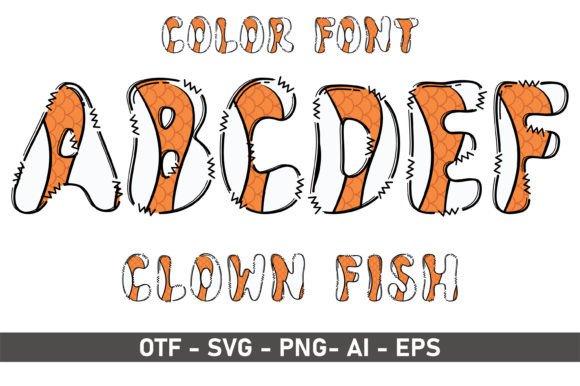
Dive into the whimsical world of Clown Fish Font, a vibrant and playful font family that sparks creativity and captures hearts. Crafted by Veil, these captivating fonts are a kaleidoscope of colors, transforming any design into an artistic masterpiece.
Step into a realm of imagination, where Clown Fish Font dances across your screen, adding a touch of magic to your creations. Its vibrant hues and playful shapes ignite a sense of joy, leaving an unforgettable impression on your audience. Let your designs bloom with creativity as Clown Fish Font takes center stage, captivating imaginations and spreading happiness.
With Clown Fish Font, the possibilities are endless. Its playful nature lends itself to a myriad of designs, from whimsical children's books that transport young readers to enchanting worlds, to eye-catching posters that demand attention. Invitations and greeting cards adorned with Clown Fish Font exude warmth and charm, inviting recipients into a world of wonder and celebration.
Unleash your inner artist and let Clown Fish Font guide your creative journey. Its vibrant colors and whimsical shapes are the perfect companions for designs that aim to entertain, educate, and inspire. Transform your ideas into visual masterpieces that resonate with audiences of all ages, leaving a lasting impression that lingers in their hearts and minds.
Don't let your designs be confined to the ordinary. Embrace the extraordinary with Clown Fish Font, the font family that ignites imaginations and sets your creativity ablaze. Dive into a world of color and joy, where Clown Fish Font leads the way to boundless creativity and unforgettable designs.